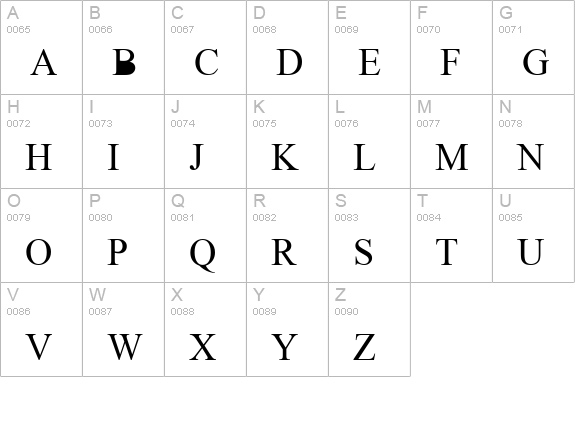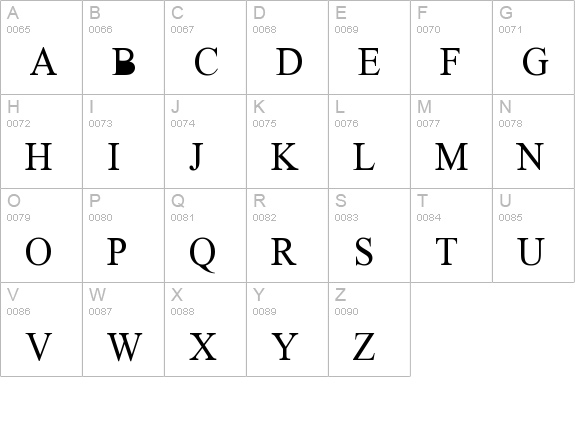
Timdan E Demo Font Details
Timdan E Demo is a stunningly beautiful font that effortlessly combines elegance and modernity. This typeface is perfect for any design project that requires a touch of sophistication and creativity. With its sleek and stylish letterforms, Timdan E Demo is sure to make a lasting impression. What makes Timdan E Demo even more appealing is the fact that it is available for free! That's right, you can download this amazing font at FontsMarket.com without having to spend a single penny. So whether you're working on a personal project or a professional assignment, you can now add a touch of class to your designs without breaking the bank. Timdan E Demo offers a wide range of characters, including uppercase letters, lowercase letters, numerals, punctuation marks, and even special symbols. This versatility allows you to create visually stunning and unique designs that stand out from the crowd. The clean and crisp lines of Timdan E Demo make it incredibly legible, ensuring that your message is easily conveyed to the reader. Whether you're designing a logo, a website, a poster, or any other type of visual communication, this font will bring your vision to life in a way that is both captivating and professional. So don't miss out on the opportunity to enhance your designs with the timeless beauty of Timdan E Demo. Download it for free at FontsMarket.com and let your creativity soar. Whether you're a graphic designer, a web developer, or someone who simply appreciates the power of good typography, this font is a must-have in your collection. Get ready to create stunning designs that leave a lasting impression.